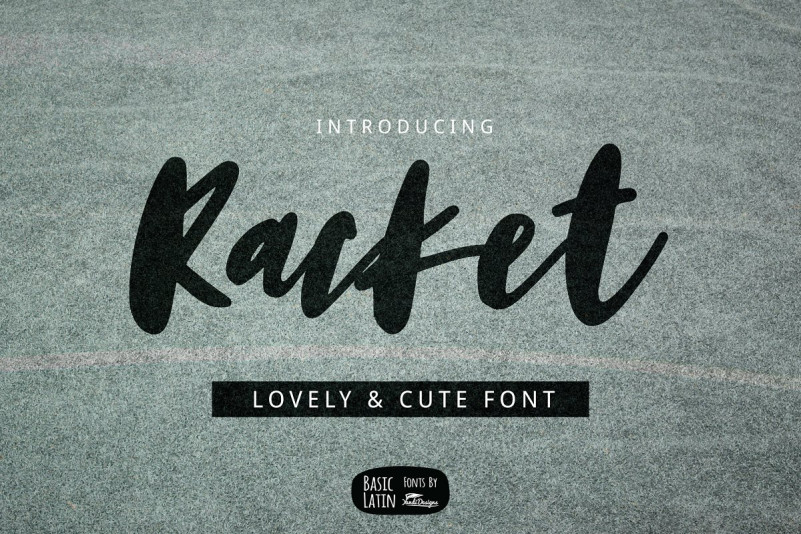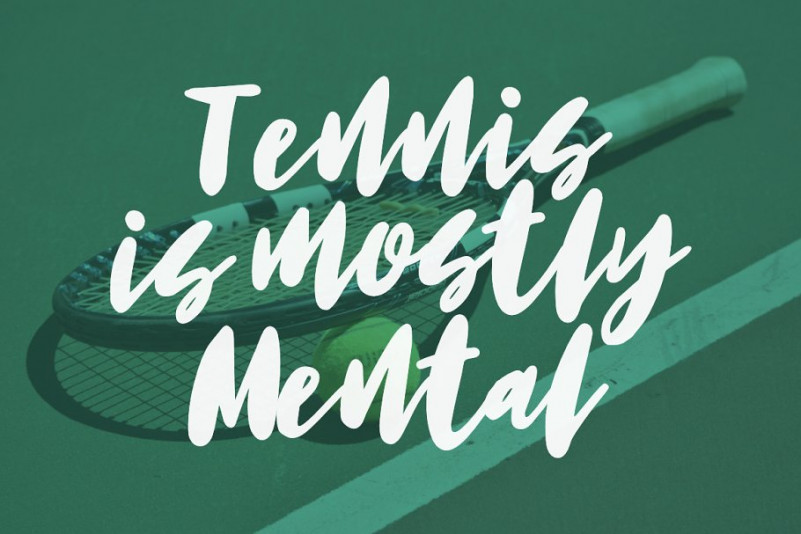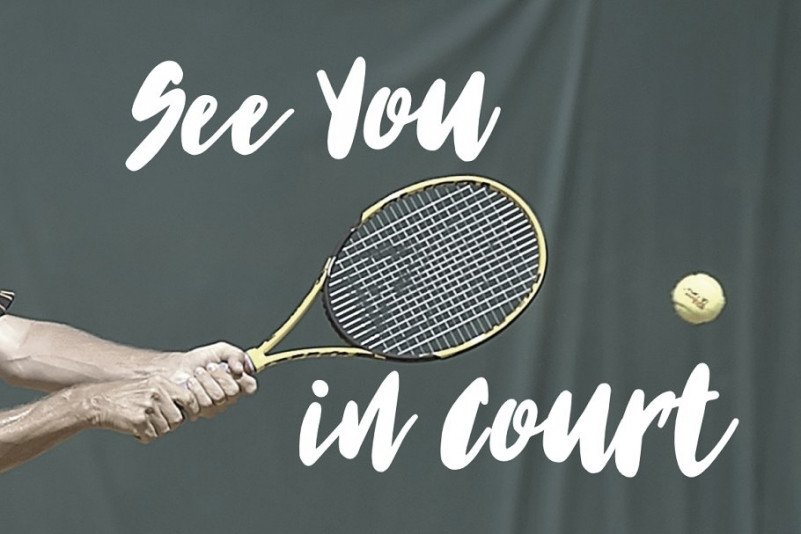
Racket Font
Racket font is simple artistic multipurpose handmade brush font , suitable for many project children book, quotes, logo , heading , title etc.